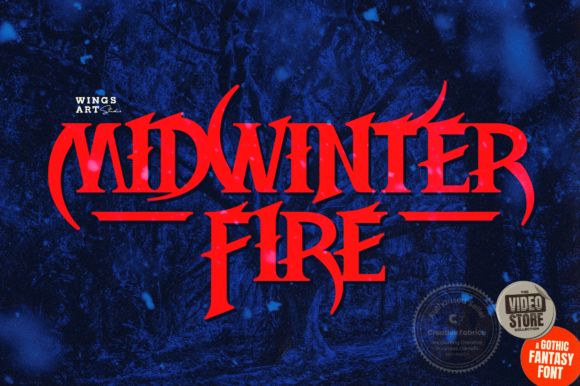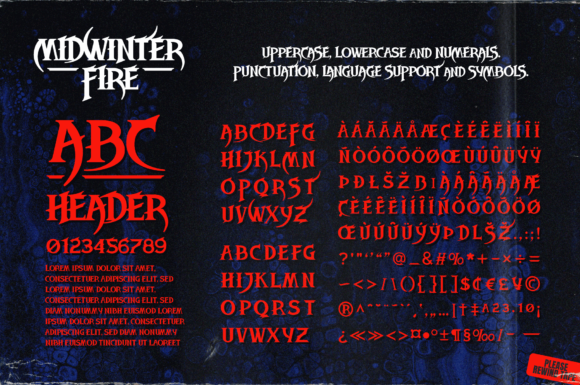
Midwinter Fire Font Font
About the Midwinter Fire Font Font
Presenting Midwinter Fire Font Font, a unique and stylish typeface that will make your work stand out. Widwinter Fire is a gothic looking, dark and bold display font. It is PUA encoded which means you can access all of the amazing glyphs and ligatures with ease!
Midwinter Fire excels as a display font for headlines, posters, and branding projects requiring a strong, dramatic presence. Its bold gothic aesthetic commands attention and works particularly well for projects with a dark, mysterious, or edgy feel. Avoid using it for body text or UI elements; its heavy weight and intricate details make it unsuitable for extended reading.
The font’s core personality is bold and dramatic, even slightly rebellious. It’s ideal for brands associated with rock music, fantasy literature, or high-fashion with a gothic influence.
To create balanced pairings, consider using a clean sans-serif like Open Sans or a classic serif like Garamond for body text. For a more modern contrast, a geometric sans-serif such as Montserrat would work well. A delicate script font could be used sparingly for accents, adding a touch of elegance to offset the boldness of Midwinter Fire.
Midwinter Fire Font Font Usage Examples
Midwinter Fire Font Font Example